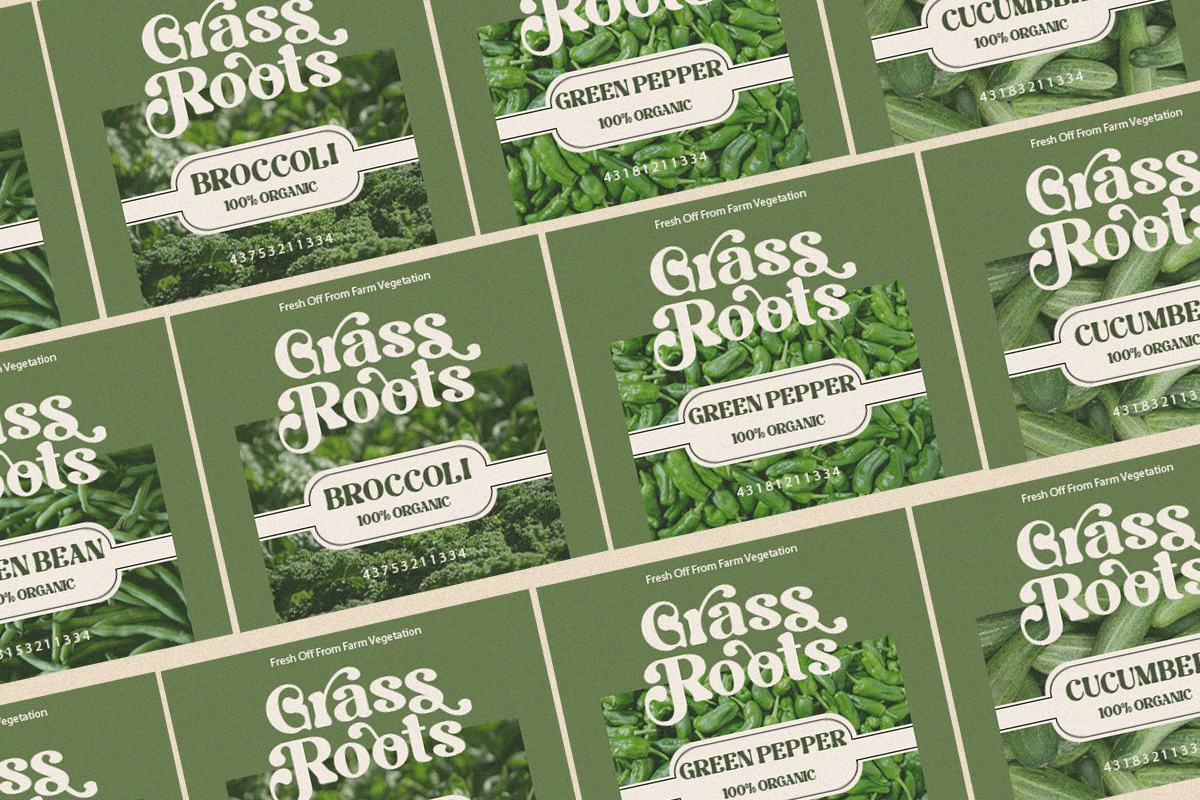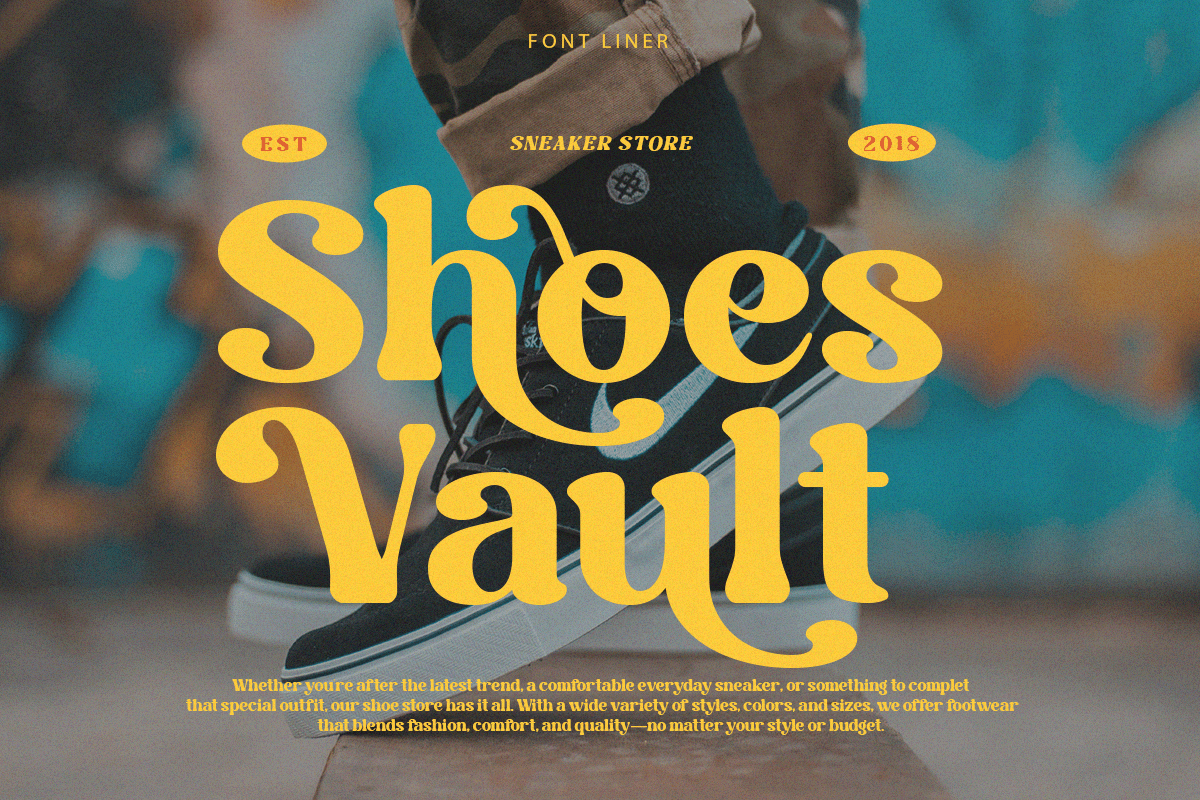
Quila – Charming Classic Retro Serif
Quila a charming classic retro serif typeface inspired by vintage signage, nostalgic advertising, and timeless editorial design. Featuring beautifully crafted alternates, expressive swashes, and decorative ligatures, Quila blends old-school elegance with modern usability. Its warm personality and handcrafted details make it perfect for designers looking to create authentic branding with a distinctive retro flair while maintaining excellent readability.
From café branding, food packaging, organic products, fashion labels, magazine covers, logo design, posters, restaurant menus, product labels, social media graphics, and lifestyle branding, Quila brings a welcoming and memorable visual presence to every project. The rich collection of alternate characters, multilingual support, punctuation, and numbers allows you to build custom typography with endless creative combinations for professional-quality designs.
Whether you’re designing for artisan coffee shops, bakeries, organic markets, beverage brands, boutique businesses, vintage-inspired packaging, or creative editorial layouts, Quila delivers a perfect balance of classic elegance and playful nostalgia. If you’re searching for a serif typeface that captures the warmth of vintage aesthetics while remaining versatile for modern branding, Quila is the ideal choice.
– Stylistic alternates
– Uppercase, Lowercase & Ligatures